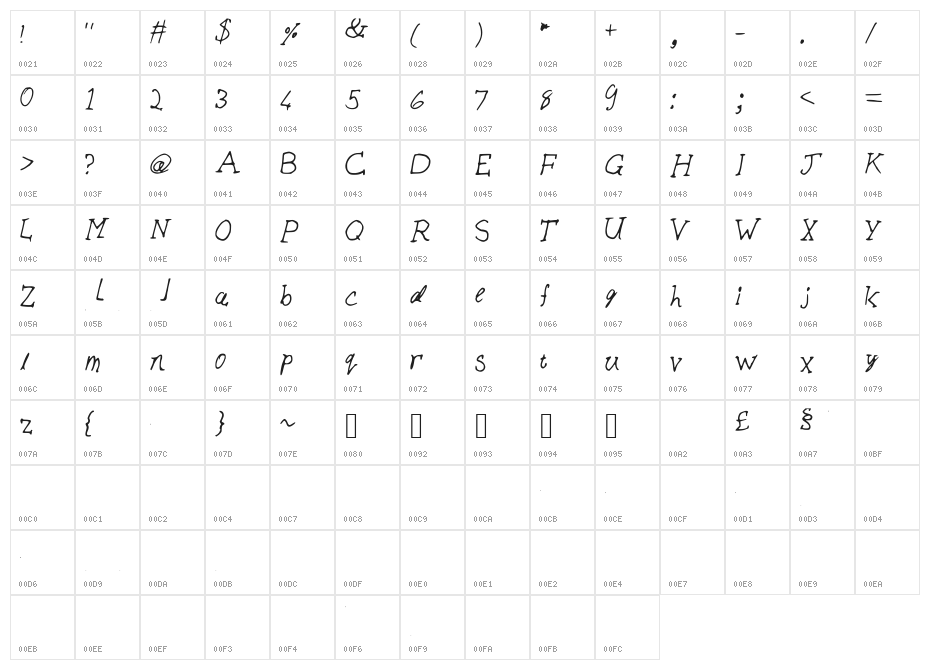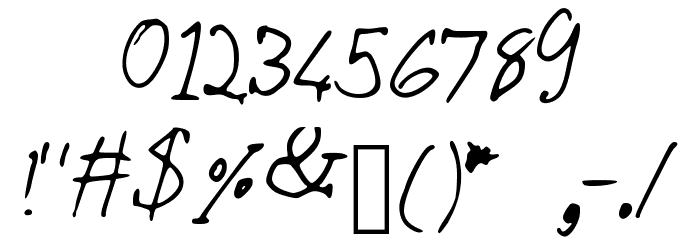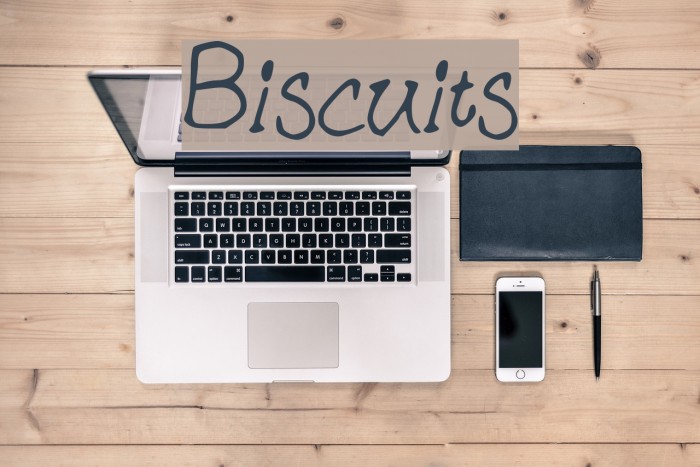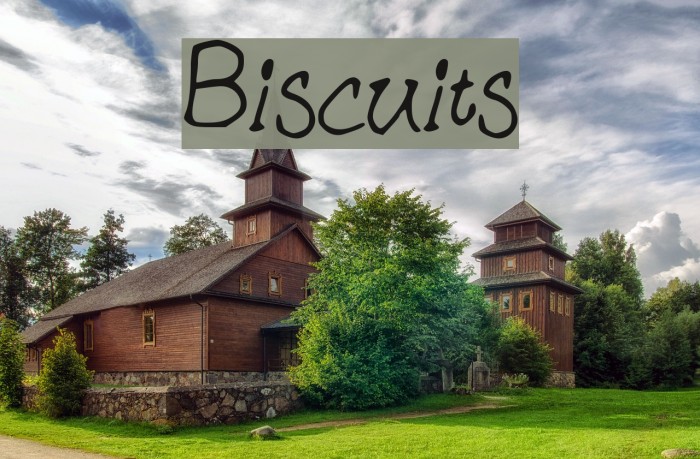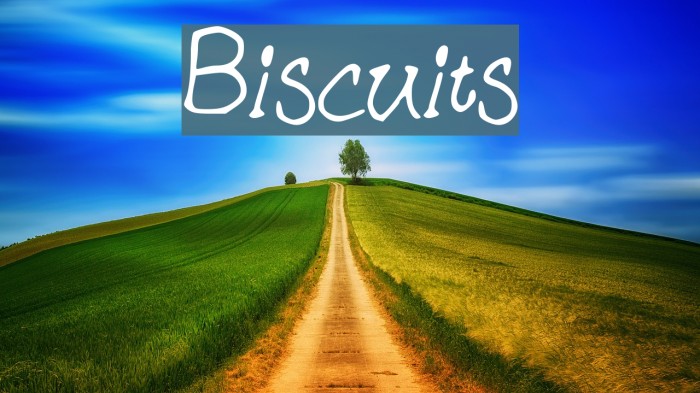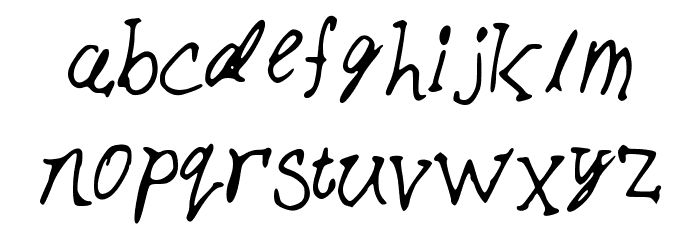
Biscuits Font
Biscuits Description
This font features a dynamic and expressive handwritten style, characterized by its fluid and slightly irregular strokes. The uppercase letters are bold and prominent, while the lowercase letters maintain a consistent flow, enhancing the handwritten feel. The numerals are distinct and maintain the same lively character as the letters. Special characters are creatively integrated, adding to the font's overall playful and artistic appearance. This font is ideal for projects that require a personal touch, such as invitations, greeting cards, or artistic branding.
| Use Case | Headlines, Artistic projects, Personal branding |
| Proposed Projects | Ideal for invitations, greeting cards, artistic branding, and personal projects. |